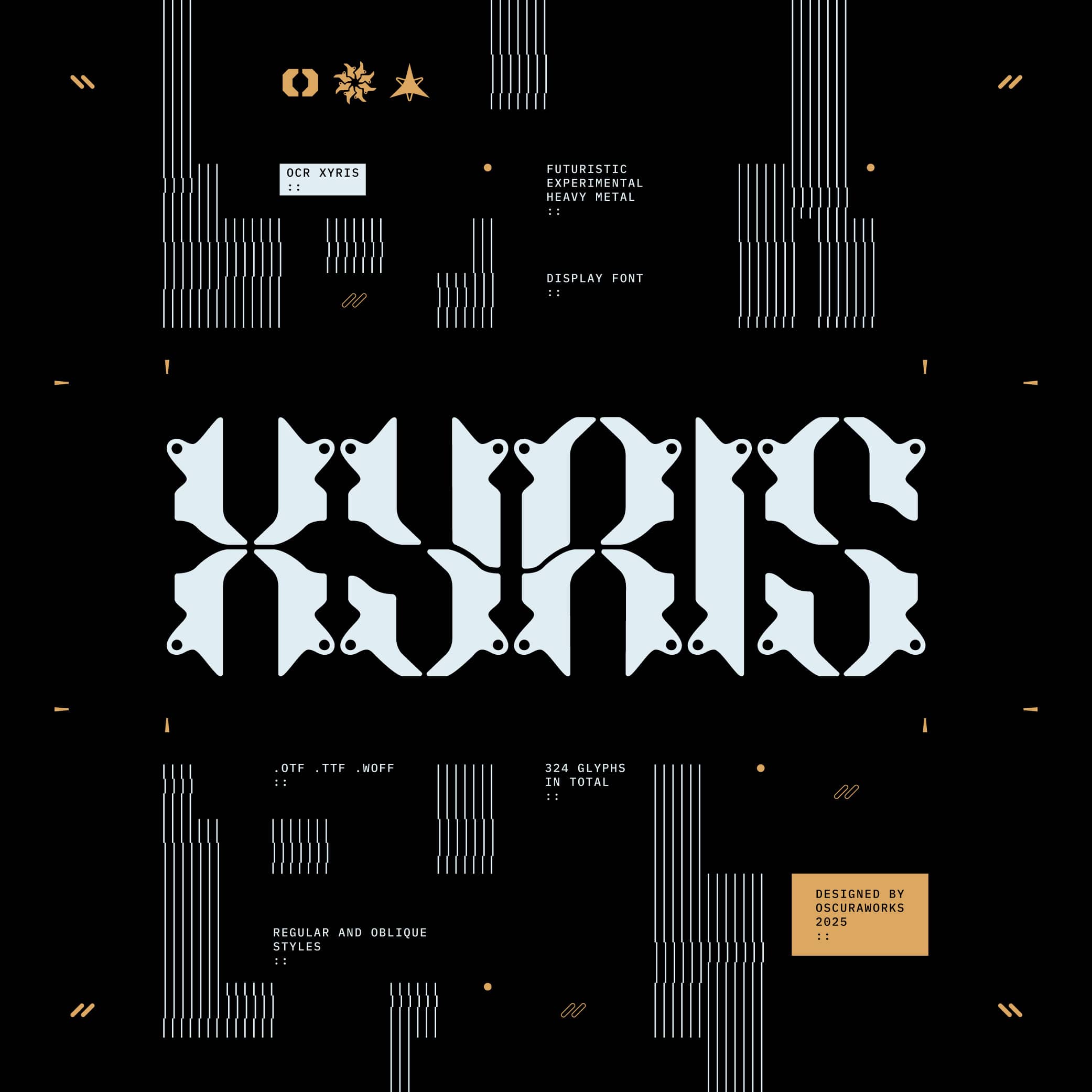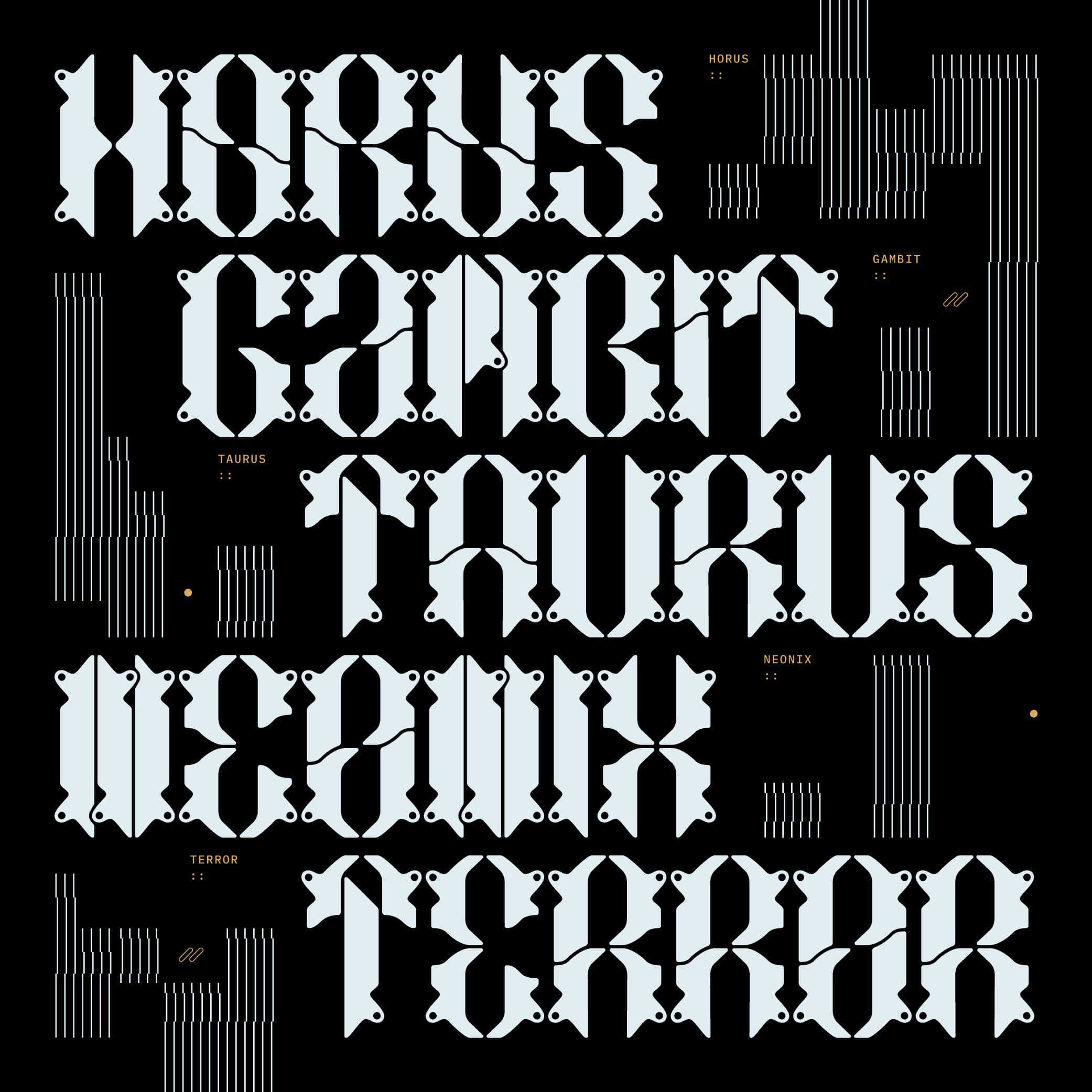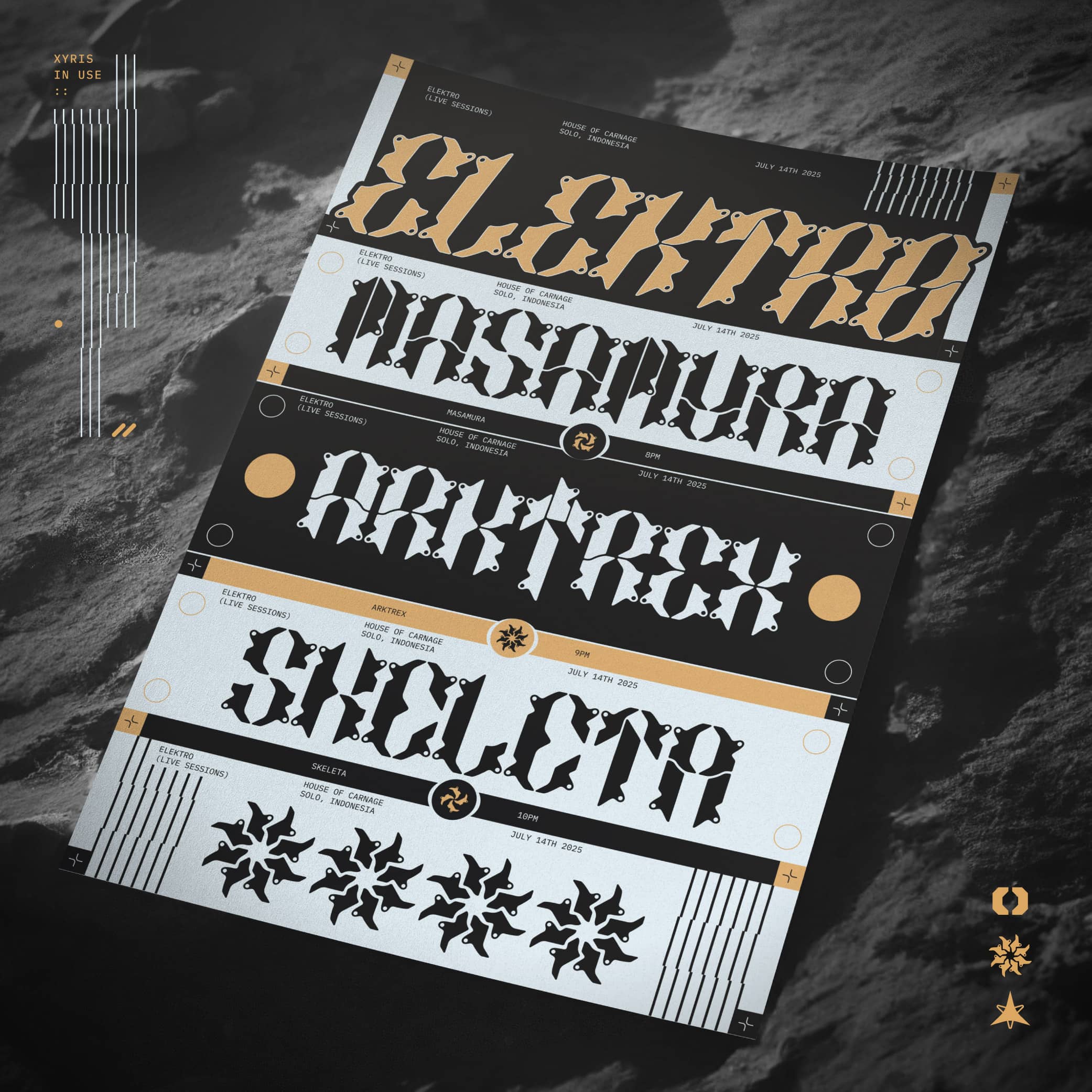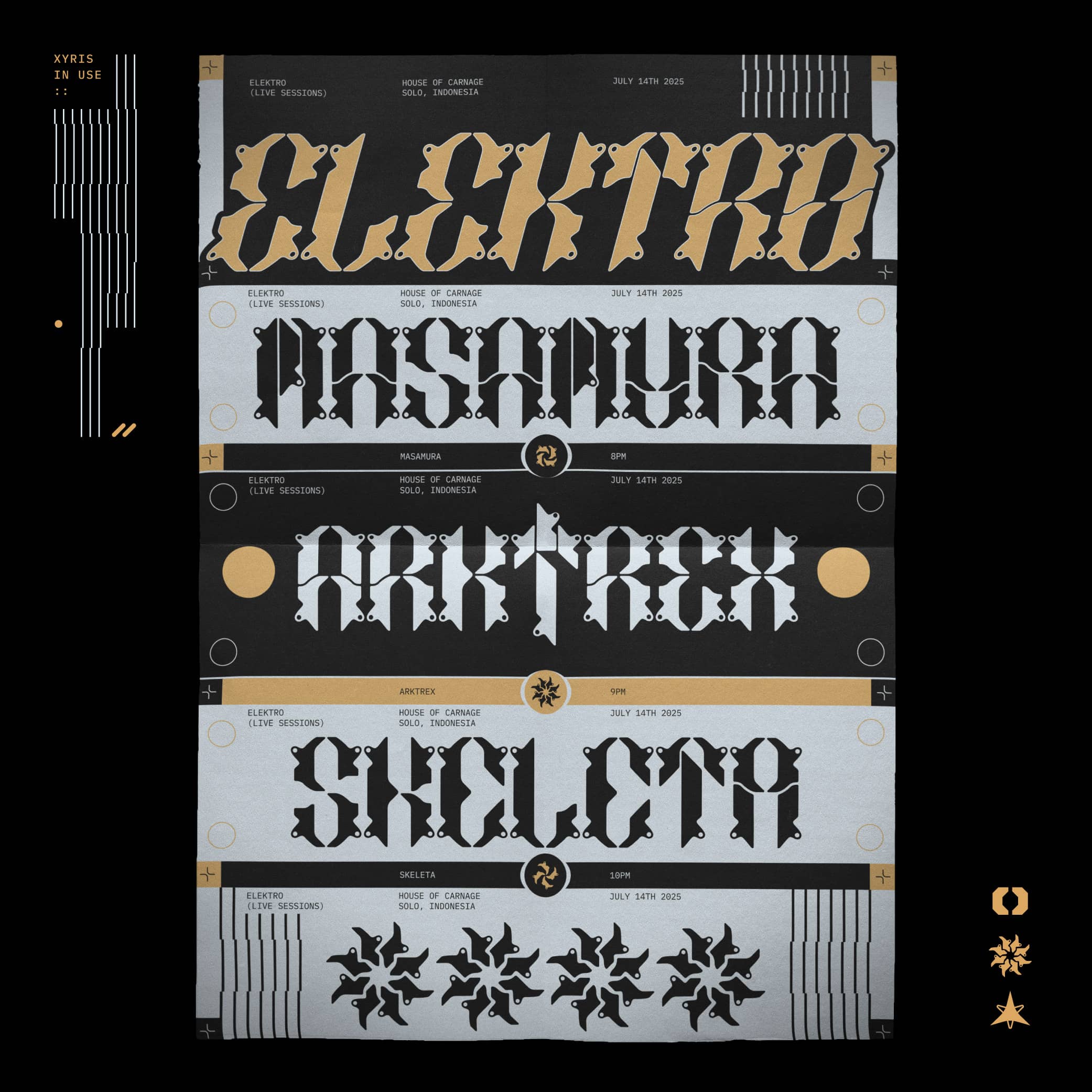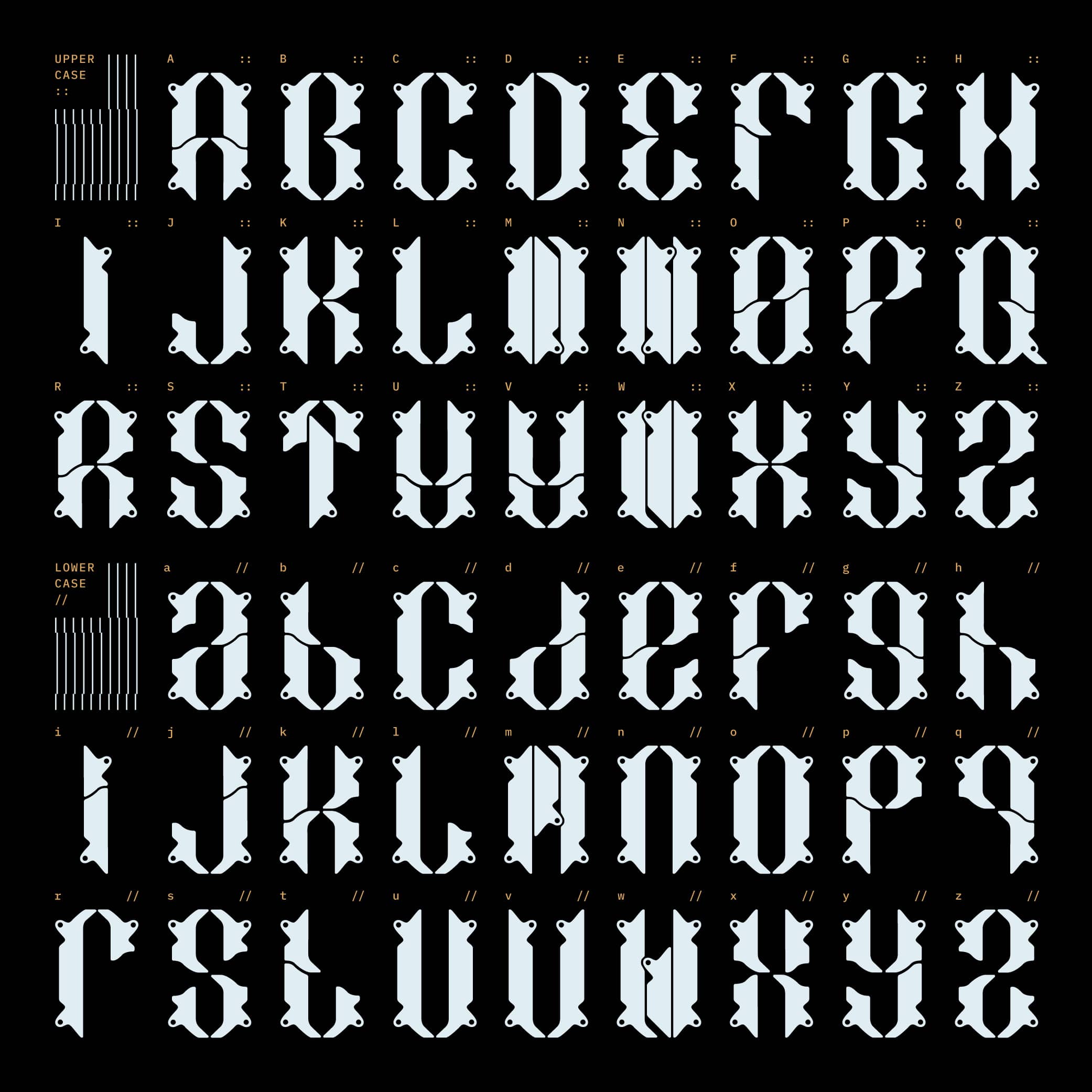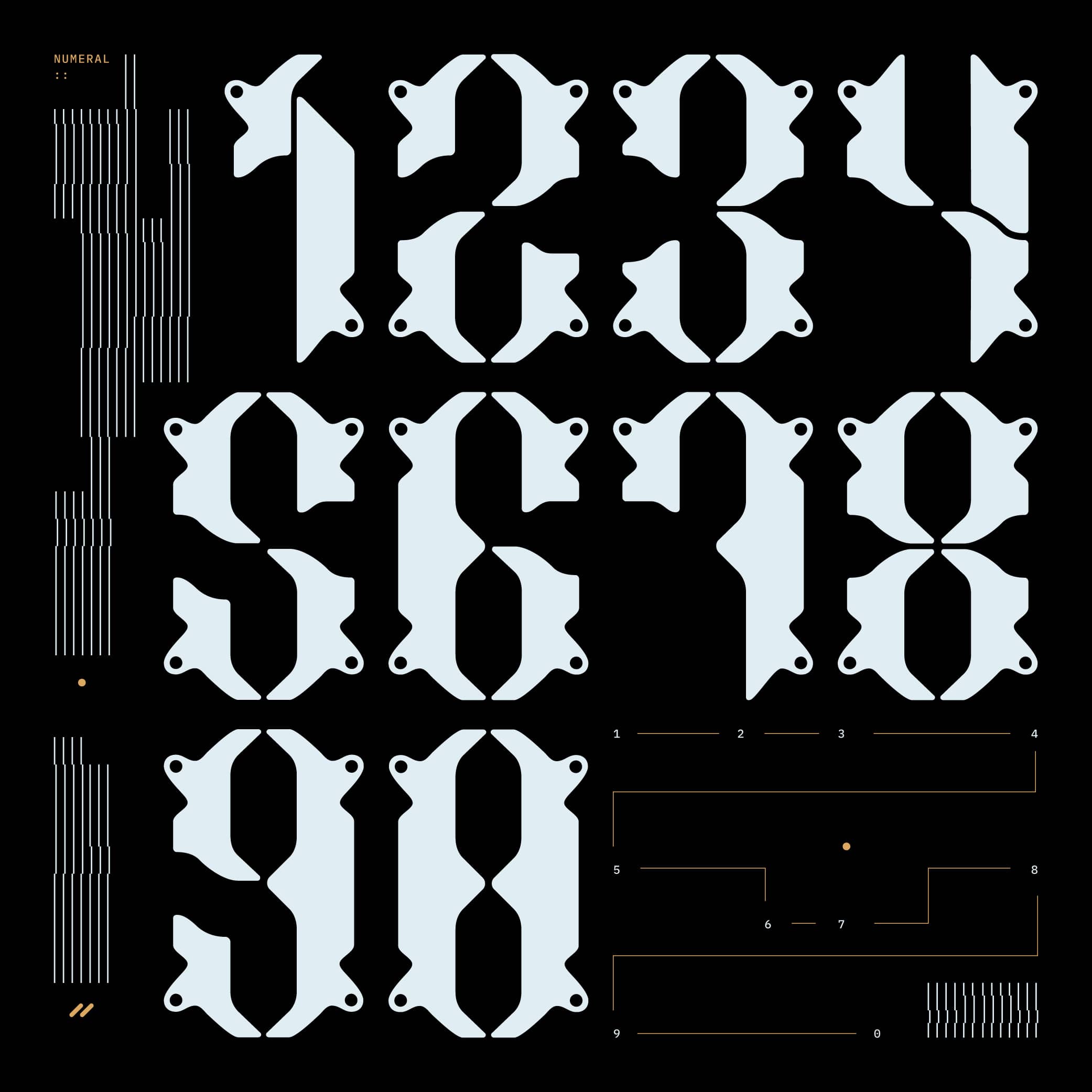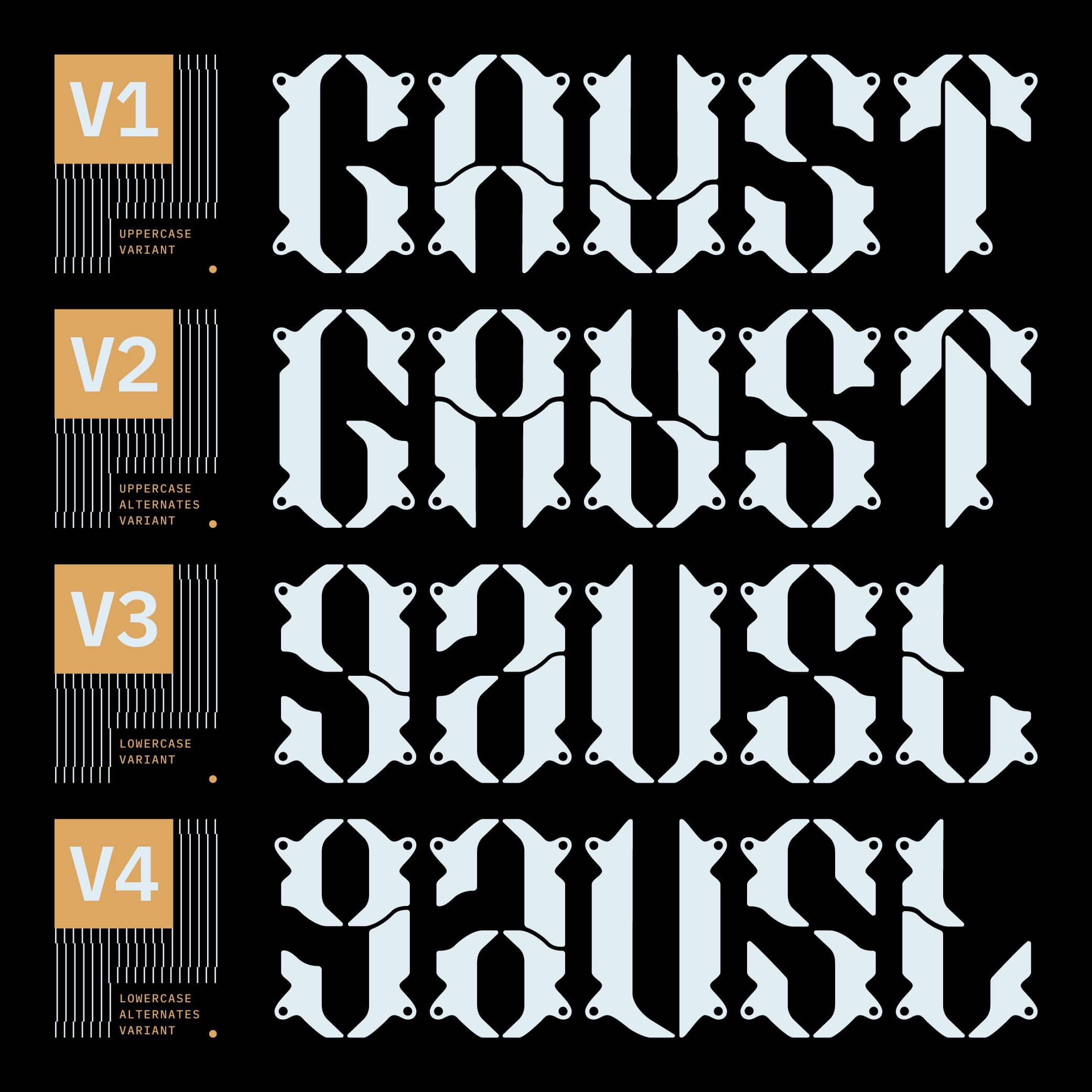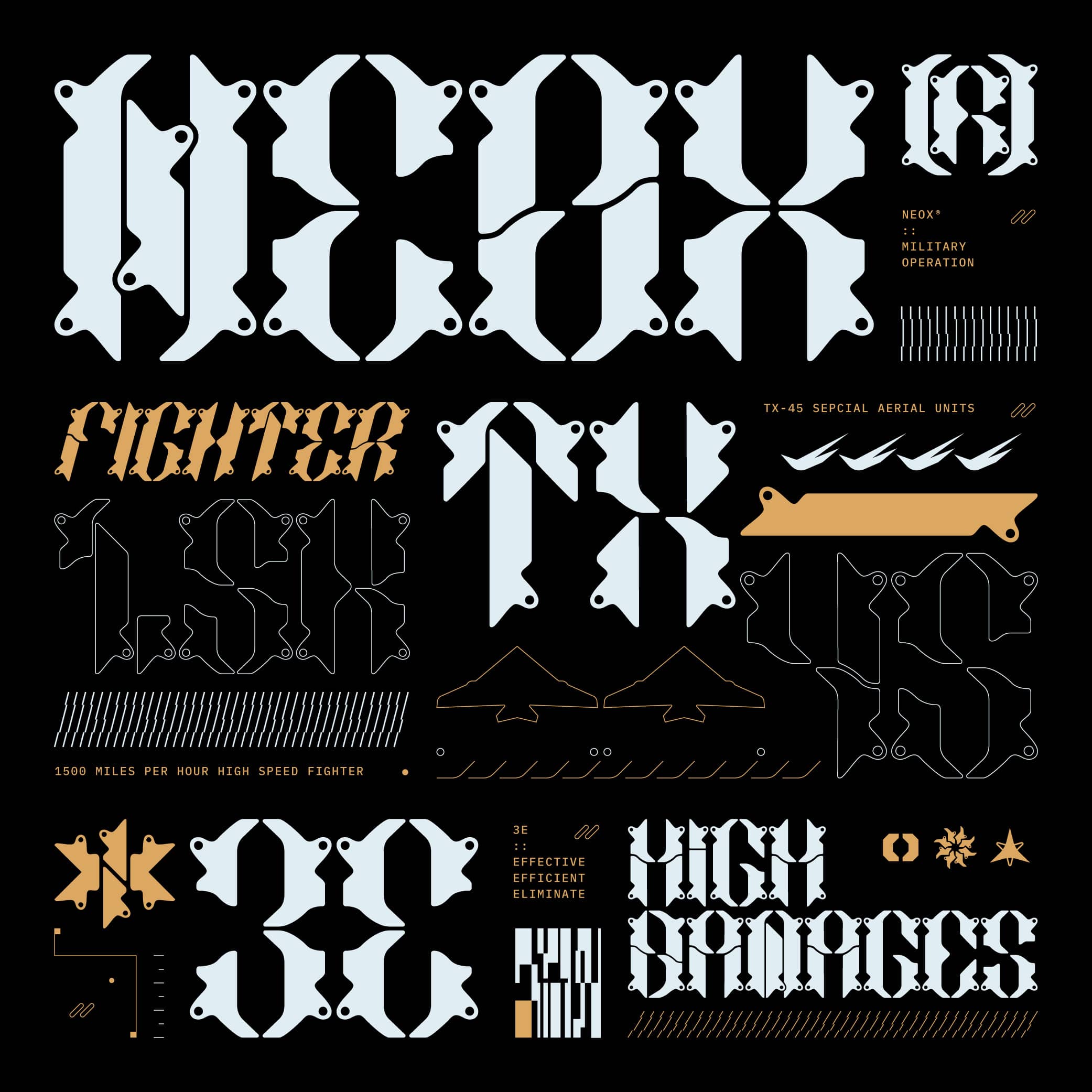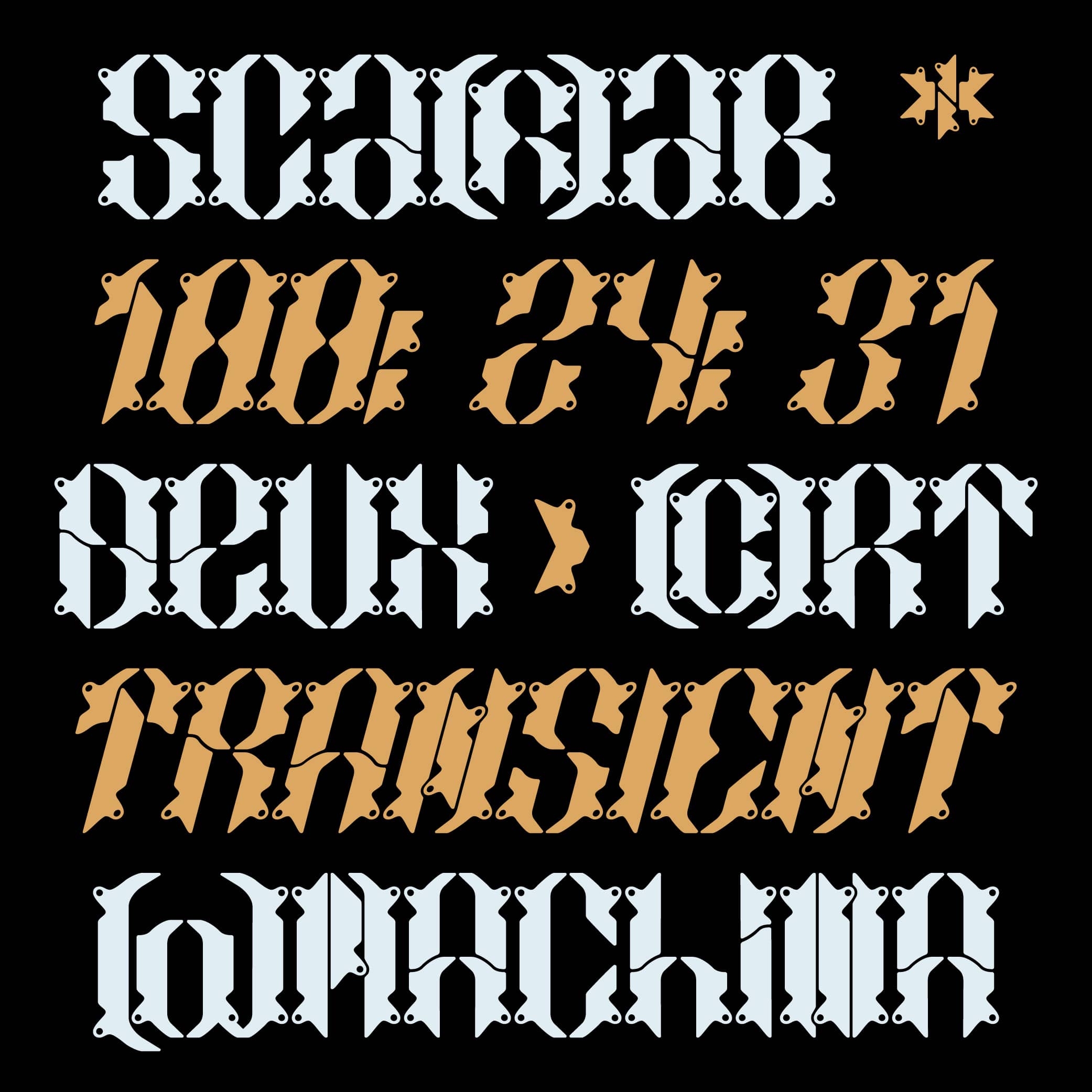
OCR Xyris
OCR Xyris is a bold, futuristic display font built for experimental design, sci-fi, and heavy metal aesthetics. Featuring 324 glyphs across Regular and Oblique styles, it includes uppercase, lowercase, numbers, symbols, and alternates – making it perfect for standout logos, posters, and album covers.